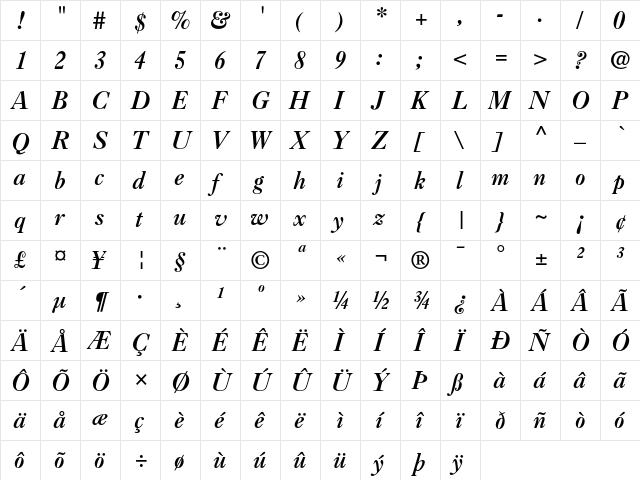
Caslon 3 Italic Font Preview
Caslon 3 Italic
Caslon 3 Italic Font Details
Design Context for Caslon 3 Typeface
Caslon 3 takes a measured approach to typography — its balanced proportions and neutral character make it a reliable workhorse for both digital and print work. Its italic angle brings a sense of urgency and motion to the letterforms.
Pro Tip: Try Caslon 3 for annotation and caption copy alongside an upright companion — the contrast in angle creates a dynamic but ordered typographic system.